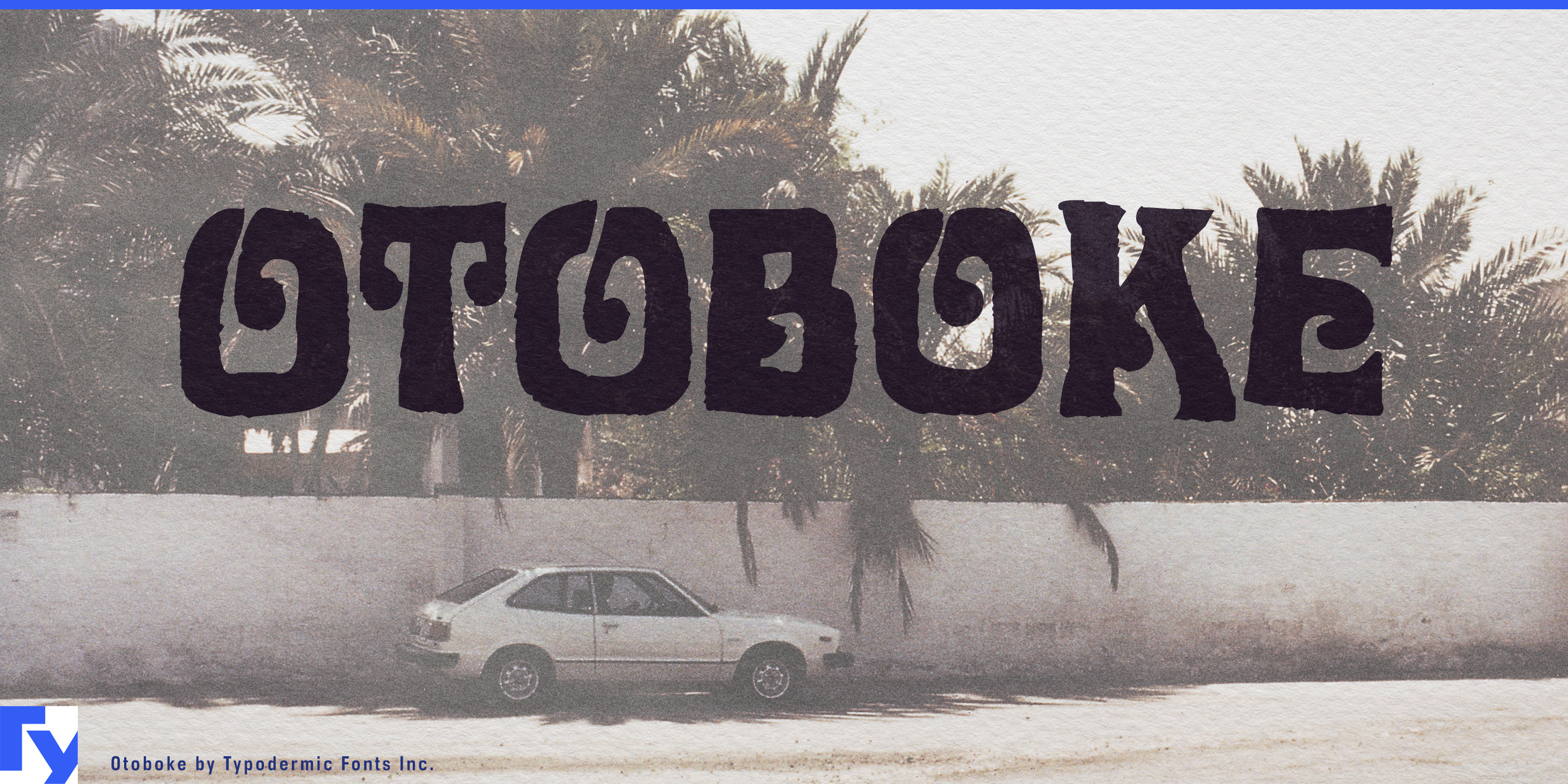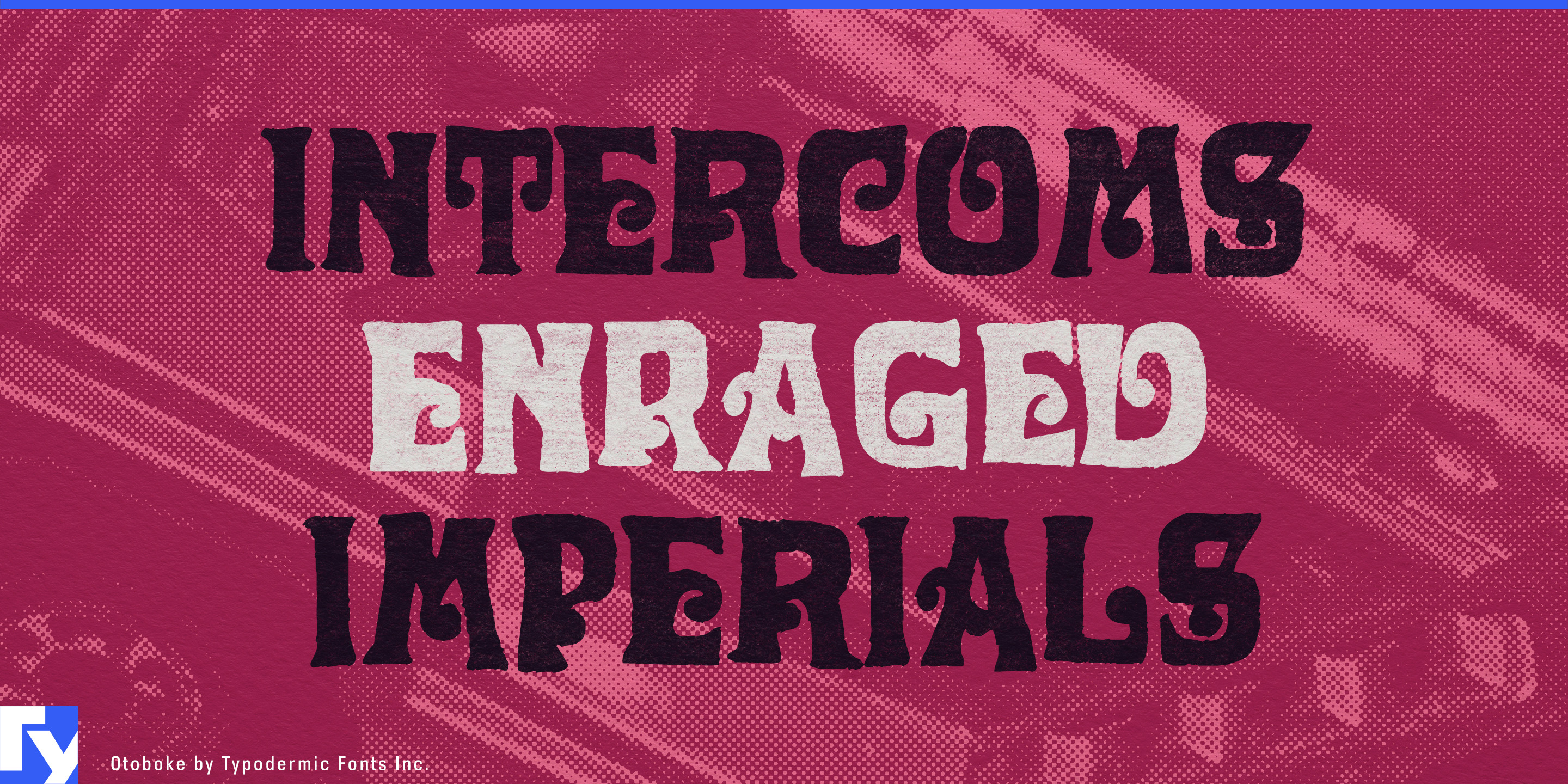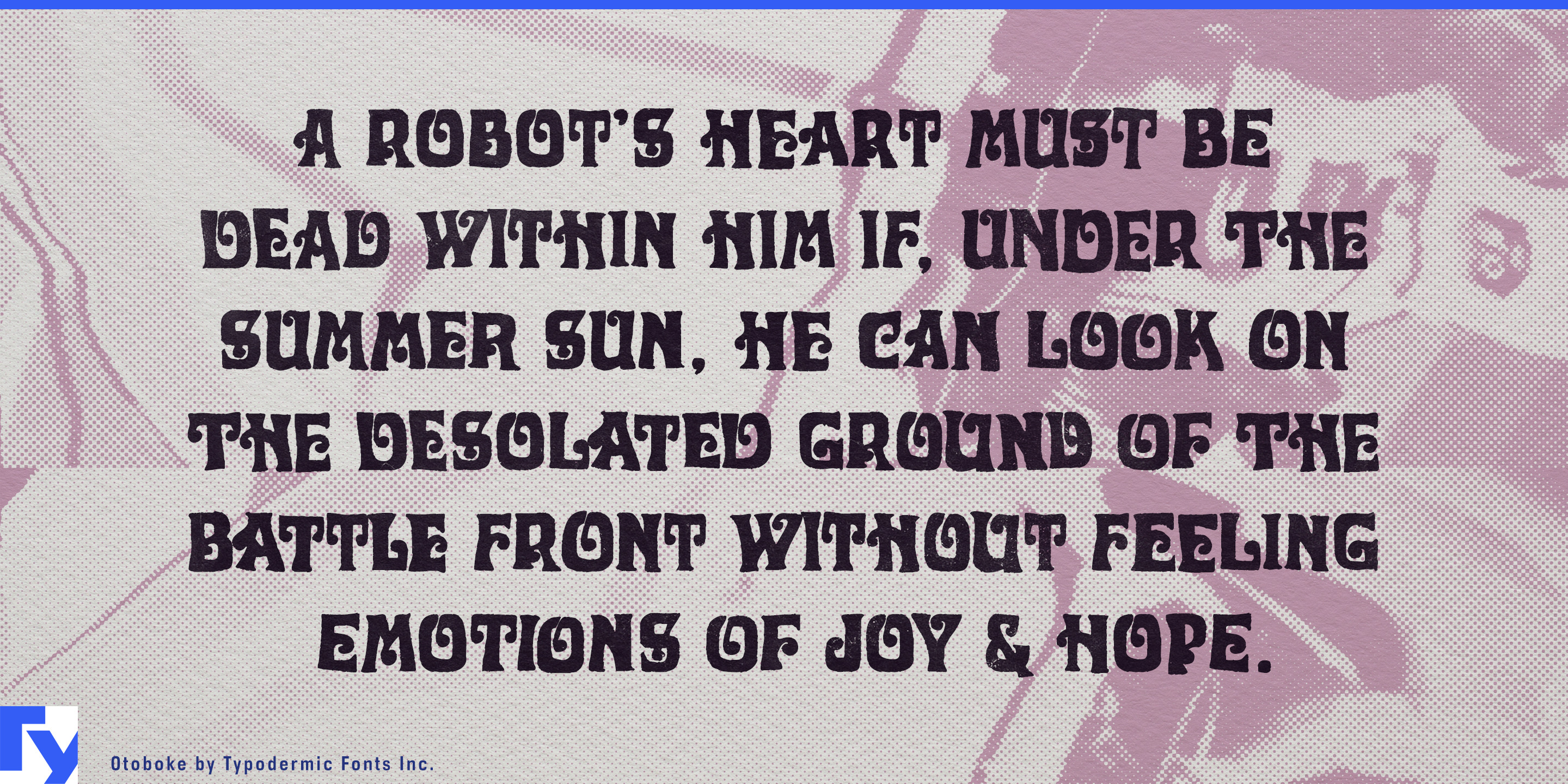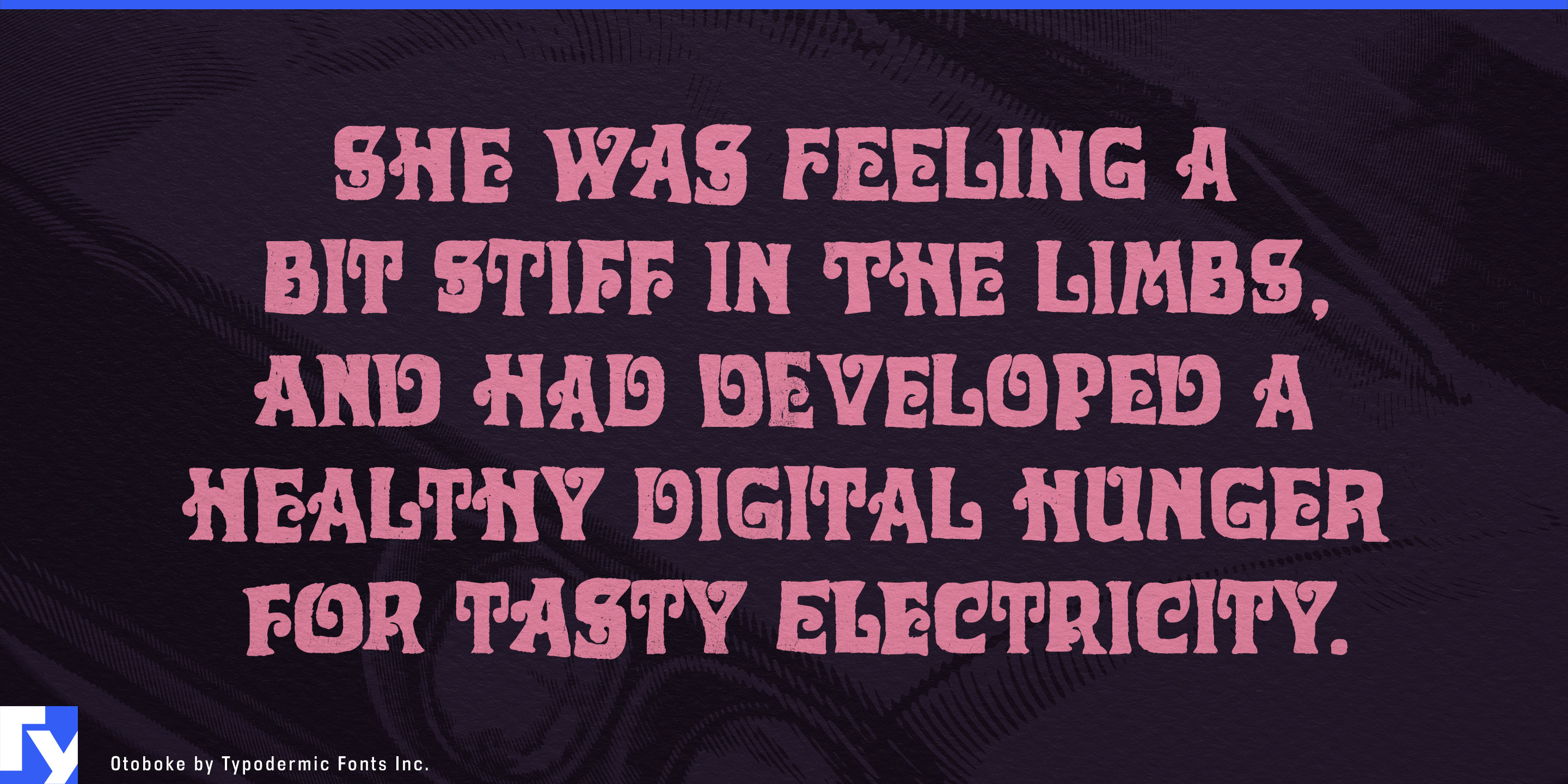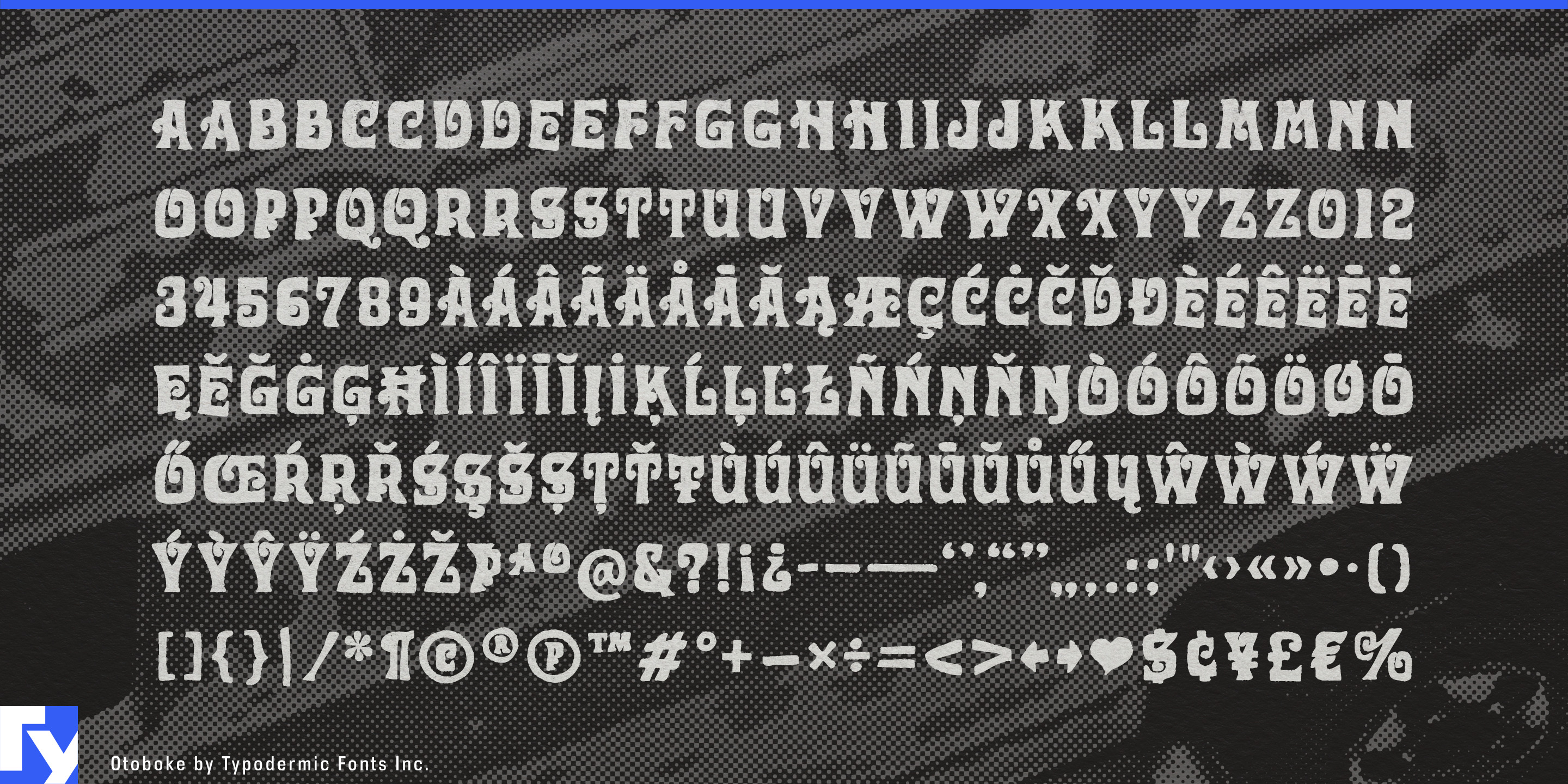
Otoboke was hand lettered on the sides of adorable white ponies. Letter pair thingamajigs (autoligs) make repeating letters less obvious. They really, really do, but only if an OpenType savvy application is involved. Look closely: you can see real (sort of) pony fur texture. Otoboke’s curly-whirly letter forms were inspired by Louis Minott’s 1965 classic, Davida.